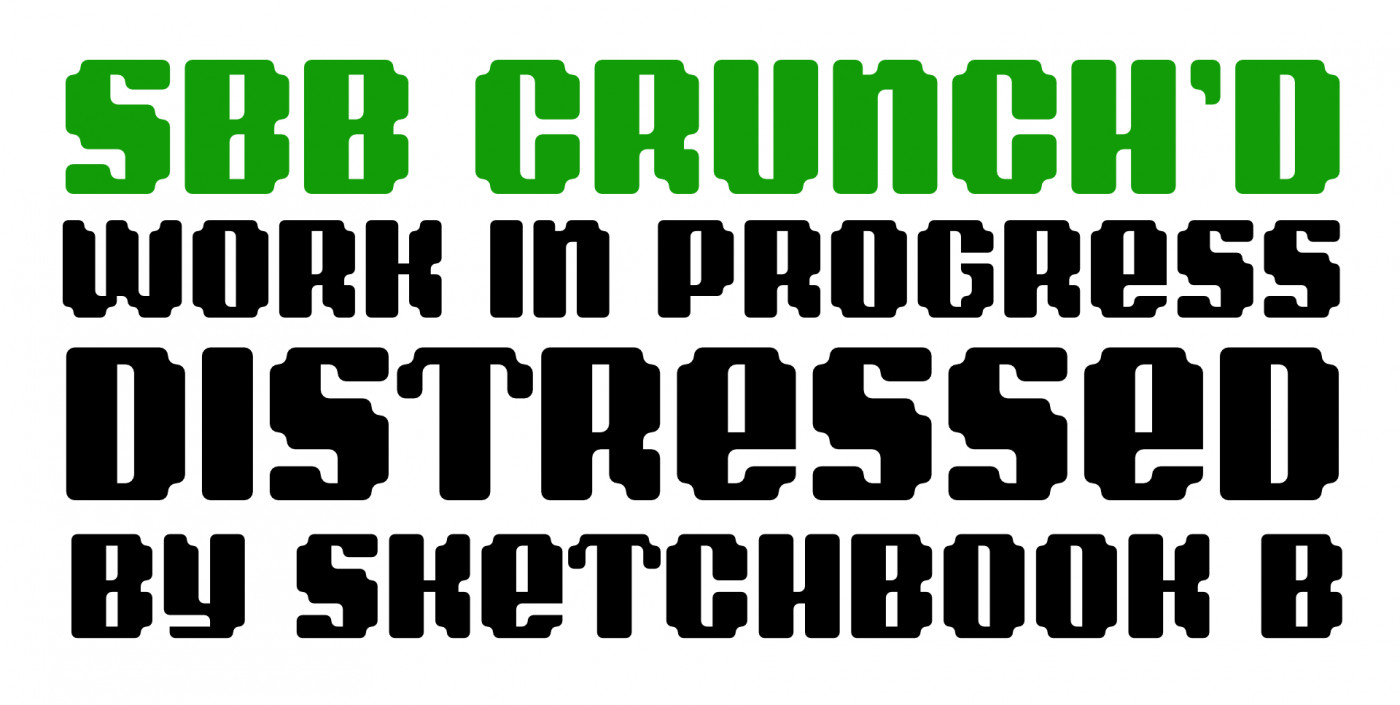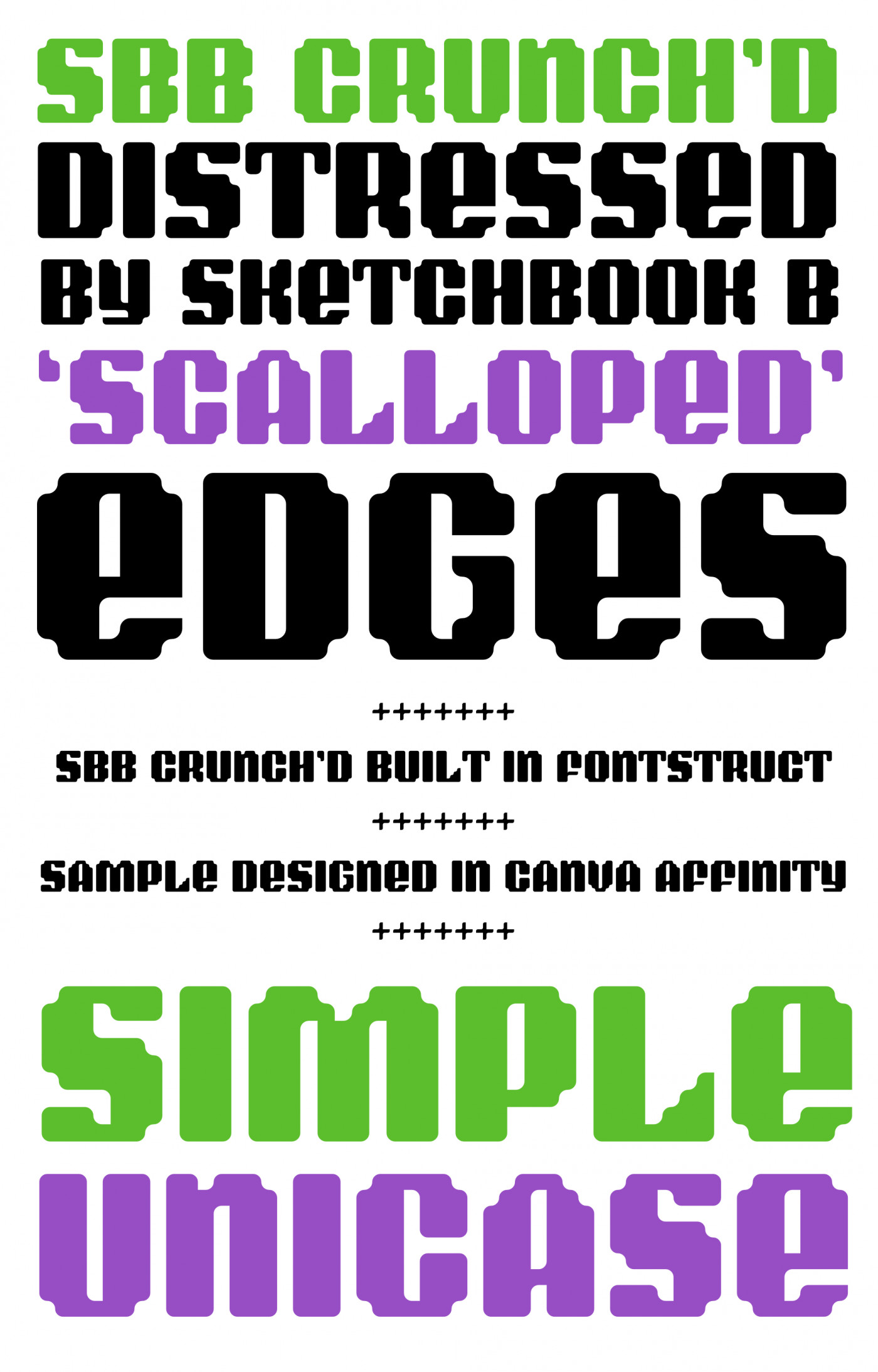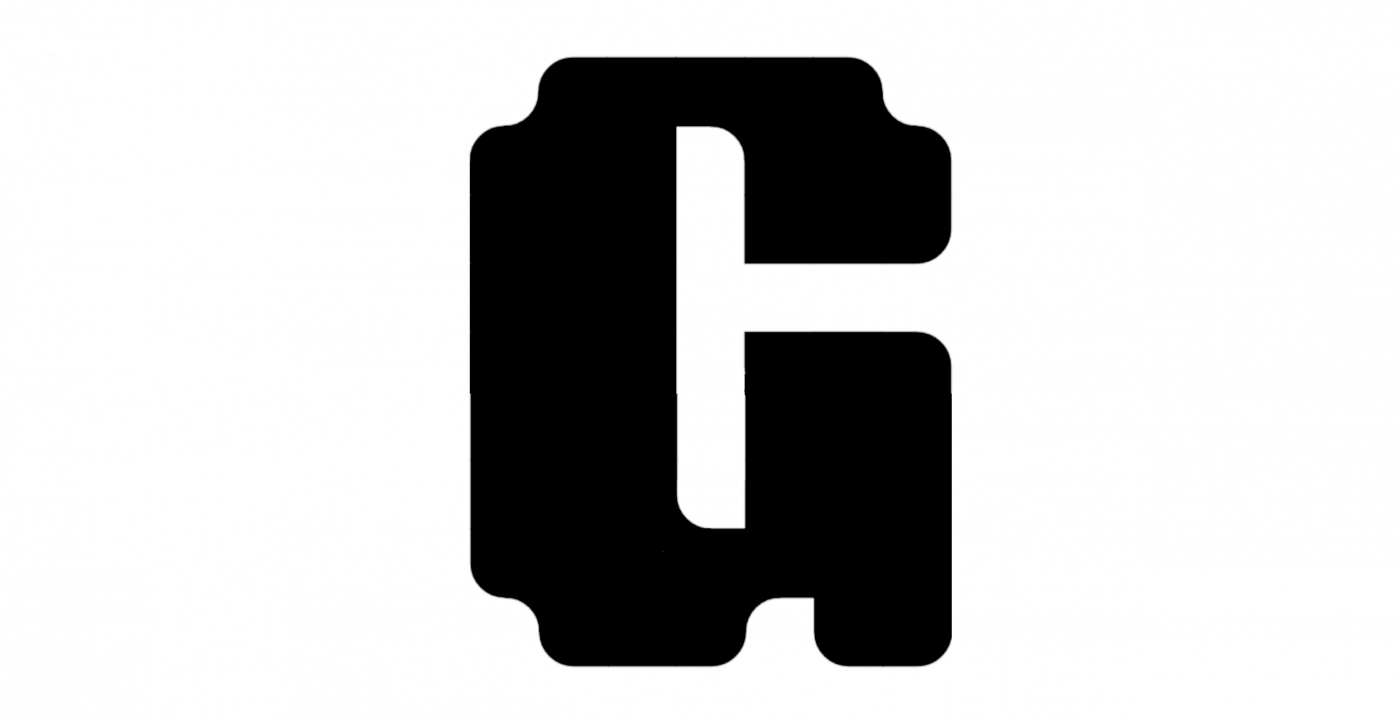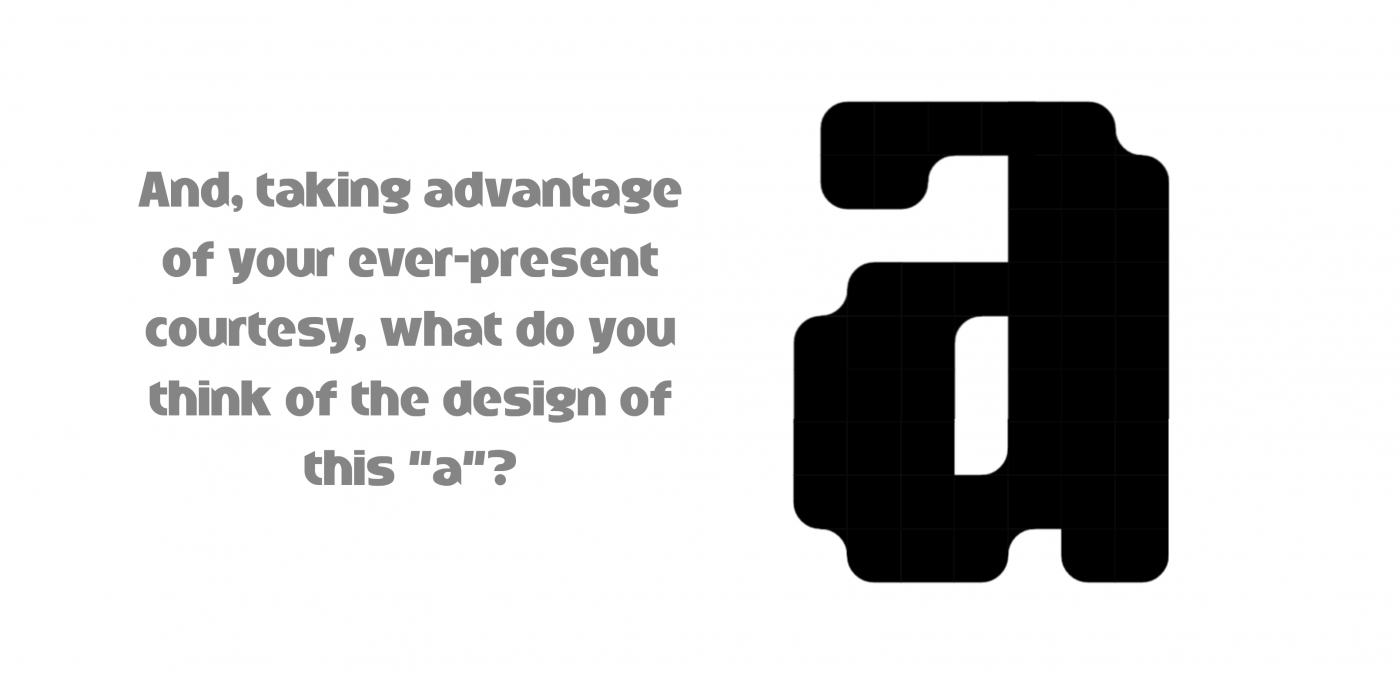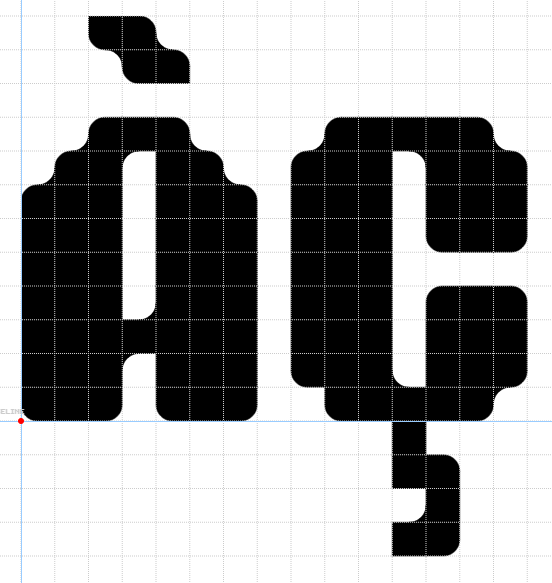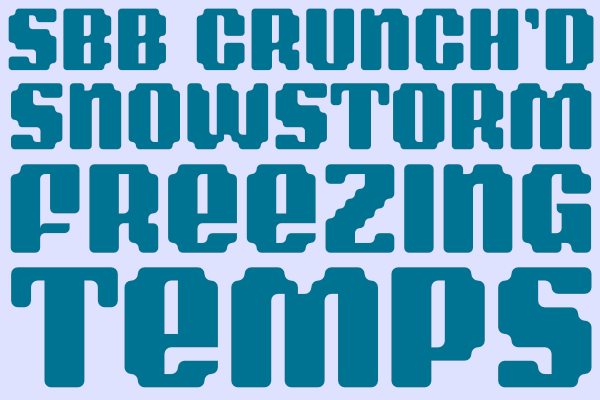
• I started this design with a 'scalloped' edge. Almost like a pixelated edge, but with some curved elements. Happy with how it turned out. Thanks to the commentators who helped make this design better.
Still work to do. Expanded the character set a bit. Changed the T and the H. More to come.
I like this kind of rounded corners. Waiting for the rest. And, btw, what do you think about this G?
Stylish display font based on the pixel grid. The diacritical marks are too small. Great samples. 10/10
I was thinking something along these lines in terms of diacritic size to make them more legible at pixel size…
(I missed a brick on the bottom left of the Ç while making the sample🤦)
The spur on the G is great. I've changed it up. I may add some "alternate characters" in the lowercase, and may include the two story a in that. It does look really good.
Agree on the diacritical mark sizes... I made them larger... I think this works, but I'm not completely happy. Still working...
Snowstorm in a place that doesn't get much snow. So I'm making edits to fonts.